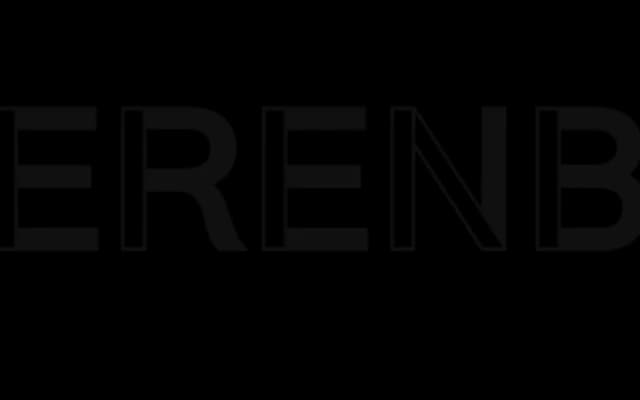
Union SMA
Radim Pesko · Radim Peško · 2012
A bespoke set of display extensions to the Union typeface, created for the visual identity of Stedelijk Museum Amsterdam in 2012.
Developed as a series of custom headline styles for the Stedelijk Museum Amsterdam, Union SMA extends Radim Peško's Union family into display territory specific to a single institutional identity. The styles were used across museum communications and remain visible in headlines on nu.nl. The typeface is not available for licensing, existing solely as a record of the commission.
Custom display extensions of the Union typeface, developed for a museum identity; the letterforms are bespoke headline styles not suited to body text, placing them firmly in the display category.